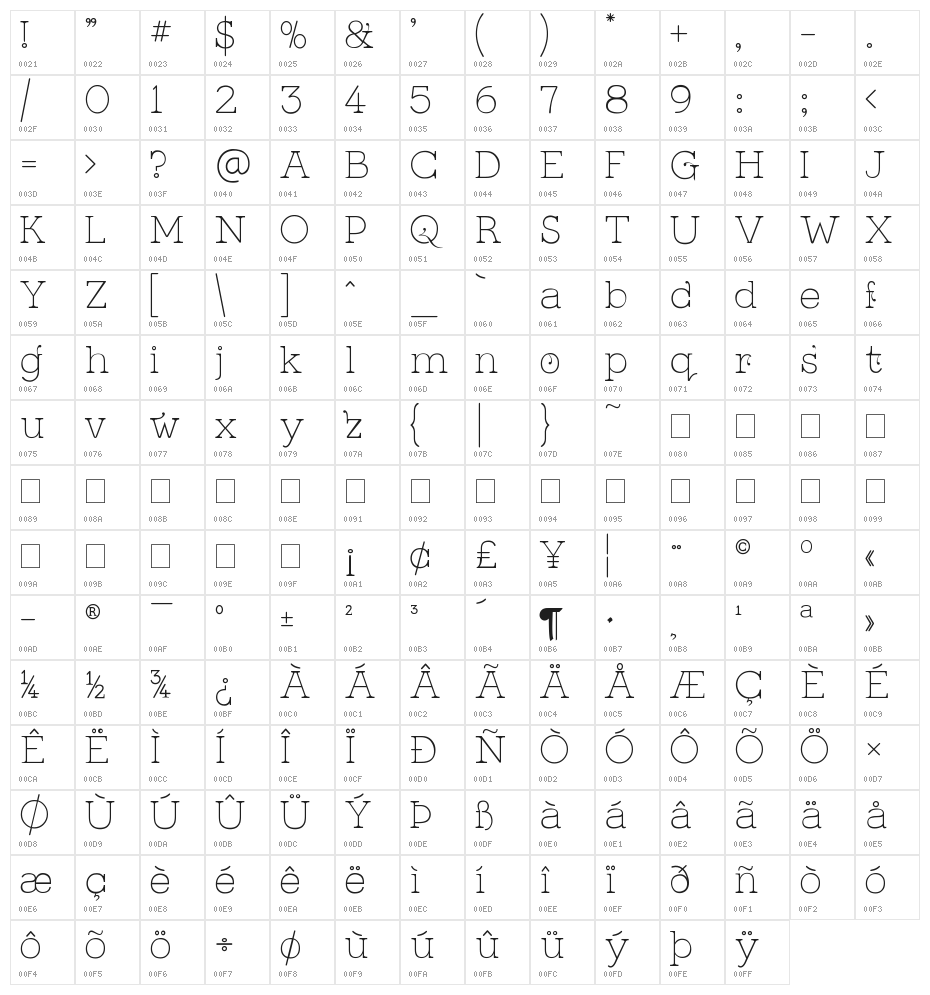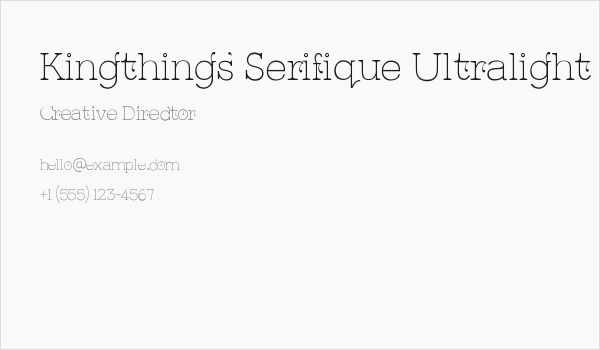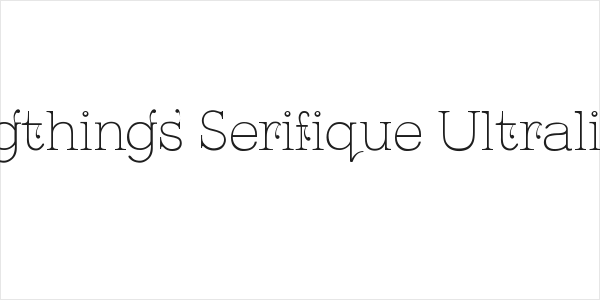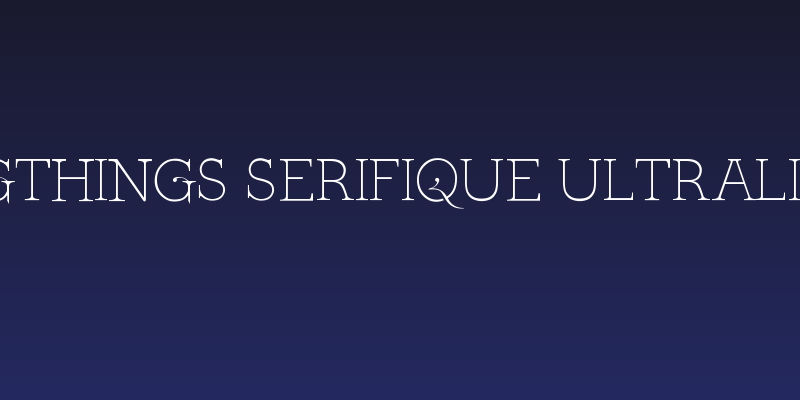
Kingthings Serifique Ultralight Font
Kingthings Serifique Ultralight Description
This font features a delicate and elegant serif style with ultra-light strokes, giving it a refined and sophisticated appearance. The characters are well-defined with subtle curves and a classic serif structure, making it suitable for formal and elegant designs. The uppercase letters are tall and stately, while the lowercase letters maintain a consistent flow with slight variations in stroke width. The numerals are clear and distinct, complementing the overall aesthetic. Special characters are thoughtfully designed, maintaining the font's cohesive look.
| Proposed Projects | Ideal for wedding invitations, luxury branding, editorial design, and elegant stationery. |